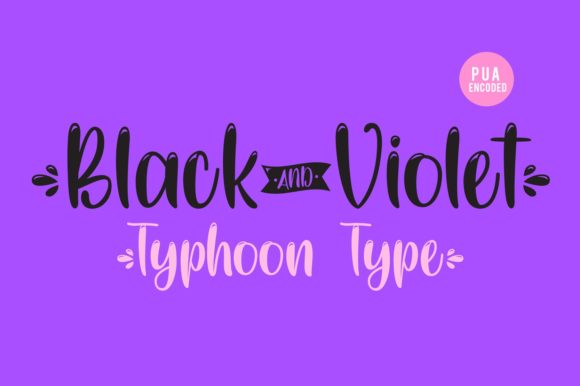
The Magic of Black and Violet Font: Elevate Your Designs with Elegance
I’ll never forget the moment I stumbled upon the perfect font for a client’s wedding invitation project. I had been searching for hours, trying out different script fonts, but none seemed to capture the essence of elegance and whimsy I was looking for. That was until I discovered Black and Violet, a magical script font that has since become a staple in my design toolkit.
An Honest Review of Black and Violet Font
- 💫 Elegant and sophisticated design, perfect for high-end projects
- ✅ Highly versatile, suitable for a wide range of applications, from Instagram posts to DIY crafts
- 🎨 Beautifully crafted with a touch of whimsy, adding a personal touch to any design
- 📚 Extensive character set, including OpenType features and glyphs, making it perfect for calligraphy and hand-lettering projects
While Black and Violet is an exceptional font, there are a few minor limitations to be aware of:
- 🤔 Some users may find the font a bit too ornate for very small text sizes or body text
- ⚠️ Limited availability of certain characters, such as ligatures, may require additional editing
The Story Behind Black and Violet Font
Black and Violet was created by a talented type designer who drew inspiration from the world of calligraphy and hand-lettering. With a passion for elegant, sophisticated designs, the designer carefully crafted Black and Violet to be a versatile and beautiful font, suitable for a wide range of applications.
A: Black and Violet is perfect for calligraphy and hand-lettering projects, thanks to its extensive character set and OpenType features. Experiment with different swashes, ligatures, and stylistic alternates to create unique and personalized designs.
A: While Black and Violet is an exceptional font, it may not be the best choice for body text or small text sizes due to its ornate design. However, it can still be used effectively in certain contexts, such as headings or titles.